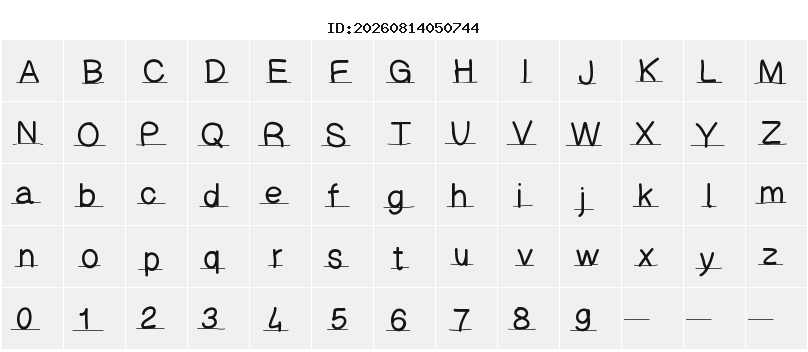
Suruntrait Preview
• Font Name: Suruntrait
• Full Font Name: Suruntrait
About Suruntrait.ttf
Suruntrait.ttf is a modern, elegant sans-serif font designed for ultimate readability and visual harmony. Perfect for branding, headlines, web design, and print materials.